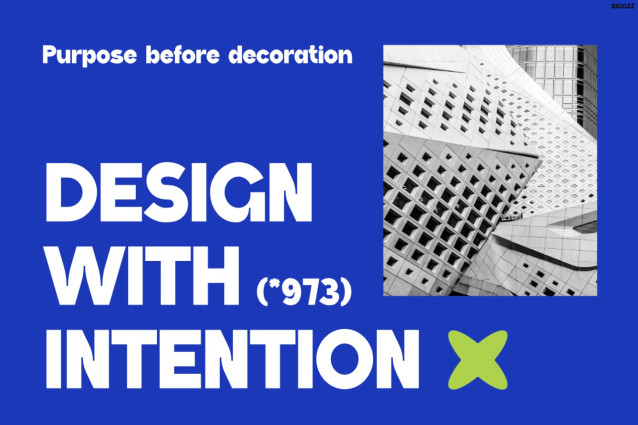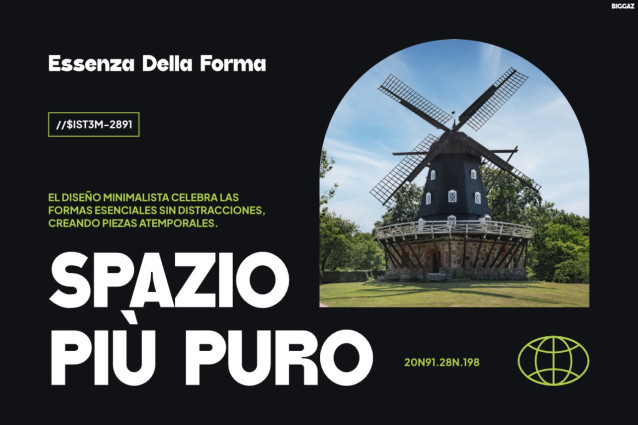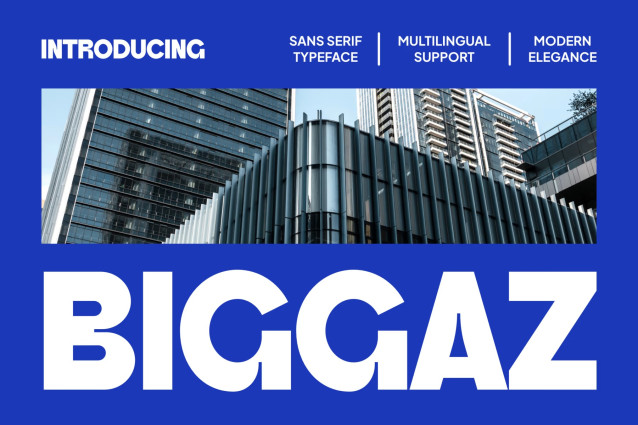
Biggaz – Minimalist Geometric Display Font for Powerful Branding
Modern Font Biggaz is a bold geometric display font created for brands that want to make a strong first impression. Built with clean lines, solid proportions, and contemporary letterforms, it delivers a confident visual style that feels modern, professional, and highly versatile. Moreover, its bold structure creates maximum impact while maintaining outstanding readability. As a result, every headline looks sharper, stronger, and more memorable across both digital and print media.
Additionally, Modern Font Biggaz is crafted for designers who value clarity without sacrificing personality. Whether you’re building a startup identity, designing editorial layouts, creating premium packaging, or producing social media campaigns, this typeface adapts effortlessly. Furthermore, its balanced geometry pairs perfectly with minimalist compositions, architectural photography, and modern branding systems. Besides that, Multilingual Support for 67 languages allows your message to reach audiences around the world. Therefore, your projects stay consistent, polished, and globally ready.